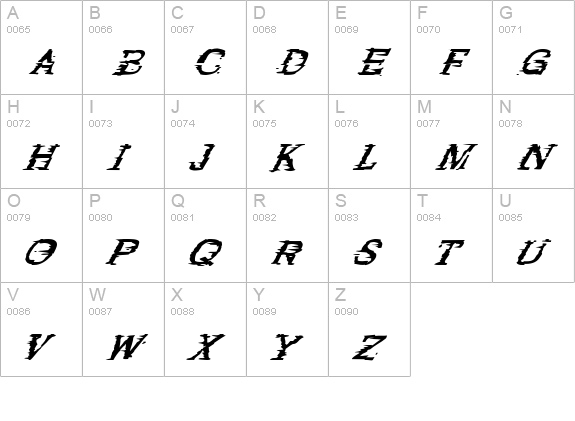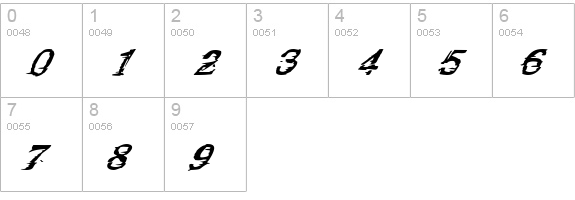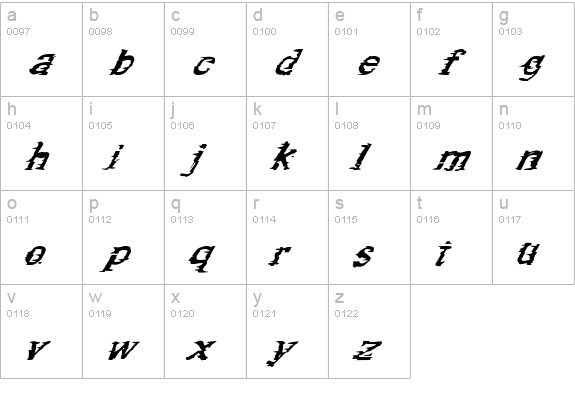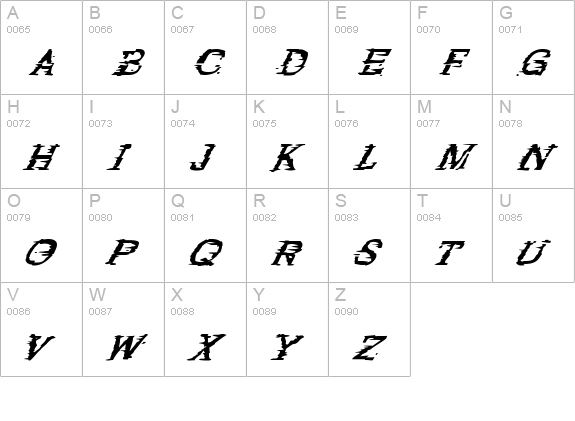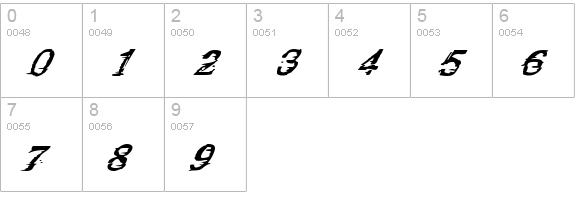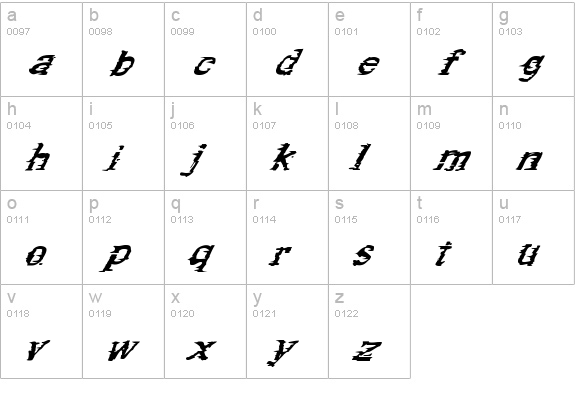
Blitzkrieg Font Details
Blitzkrieg font is a modern and sleek typeface that exudes power and energy. Its sharp edges and bold lines make it perfect for headlines, titles, and logos that need to make a strong impact. The unique design of Blitzkrieg font sets it apart from other fonts, giving any project a dynamic and edgy feel. Best of all, Blitzkrieg font is available for free download at FontsMarket.com. This means you can easily add this striking font to your design arsenal without any cost. Whether you're working on a poster, website, or branding project, Blitzkrieg font will help you make a bold statement and leave a lasting impression on your audience. Download Blitzkrieg font today and unleash its power in your designs!